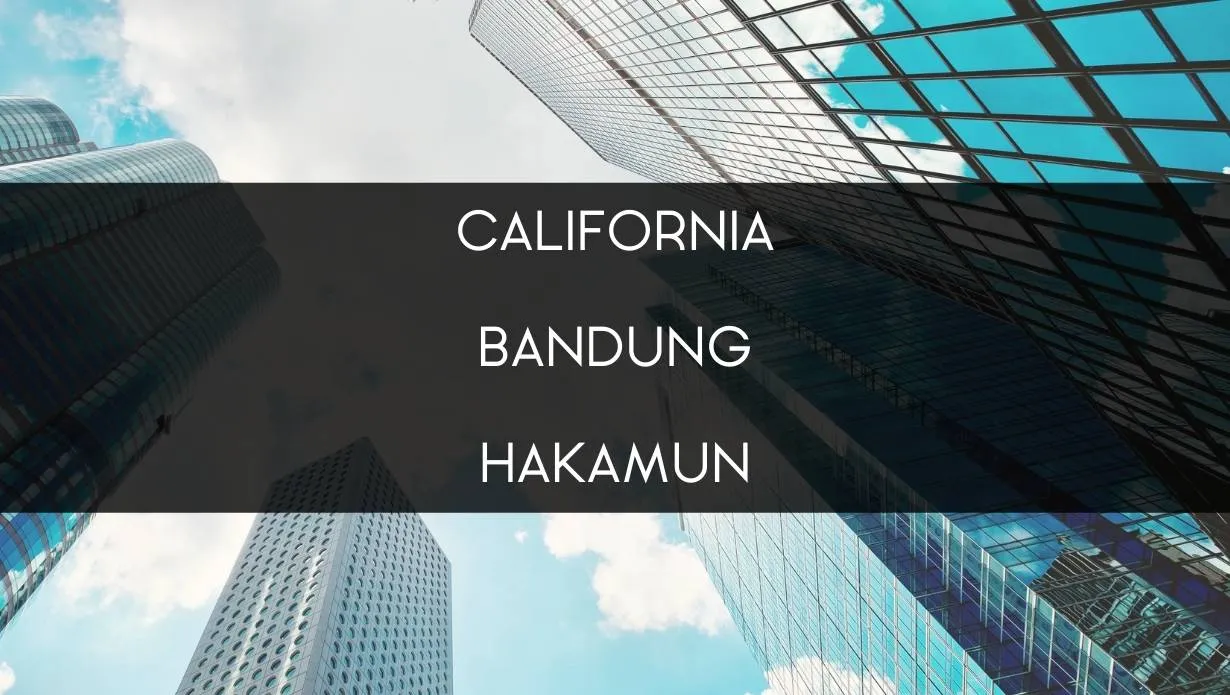
Ginora Sans Font is a sans serif typeface designed by Matheus Gomes in 2016. The design is influenced by early Grotesques and Geometric sans-serifs, but Ginora Sans has a unique personality of its own.
Ginora Sans Font supports several languages. It is identical to the nunito font. This typeface is available in the straight-stroke style with round corners. This typeface is good for graphic design.